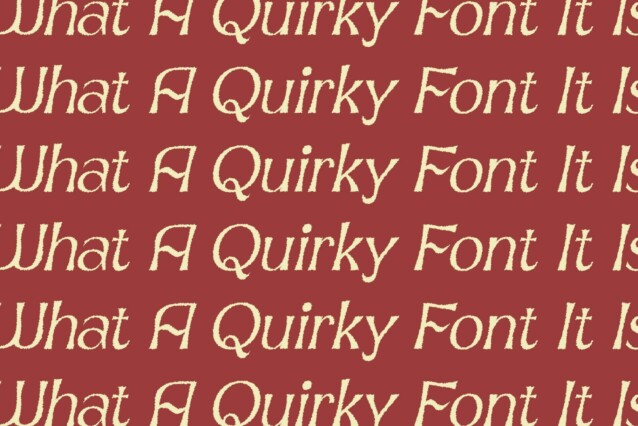
Neckyn Rough Font
Neckyn Rough Font is a modern sans serif display font that stands out with its quirky design and fun characters, making it a delightful choice for creative projects. The unconventional shapes and playful letterforms catch the eye, ensuring that your message resonates with a sense of whimsy and joy.